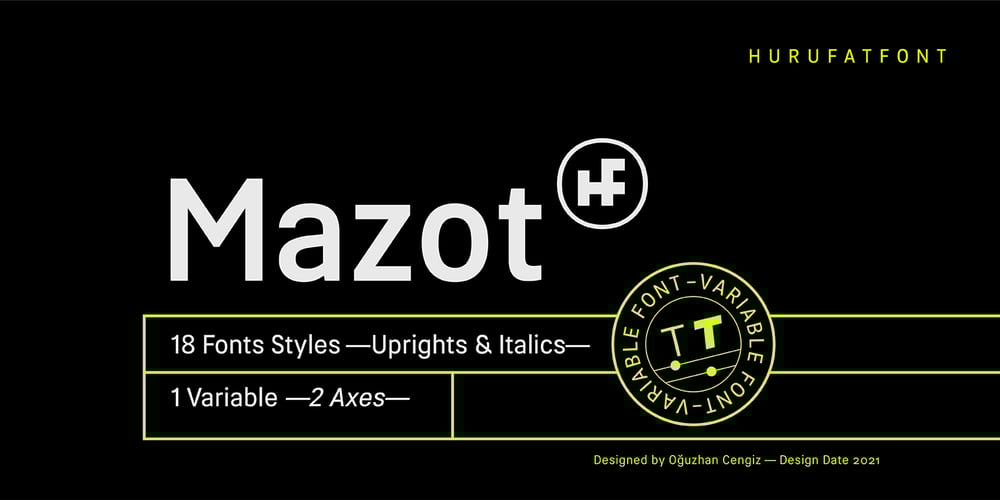
Mazot
Mazot font
Mazot Font Family was designed by Oğuzhan Cengiz and published by Hurufatfont. Mazot contains 18 styles and family package options. Mazot is a modern sans serif with a compact and low contrast structure.Low contrast structure and terminals being flush with the body,gives it a raw effect. Perfect for Branding, Poster and Packaging designs.It has rich OpenType features. It consists of a total of 18 styles, from Light to Heavy with 9 weights and matching italics.It is available in 2-axes variable version.